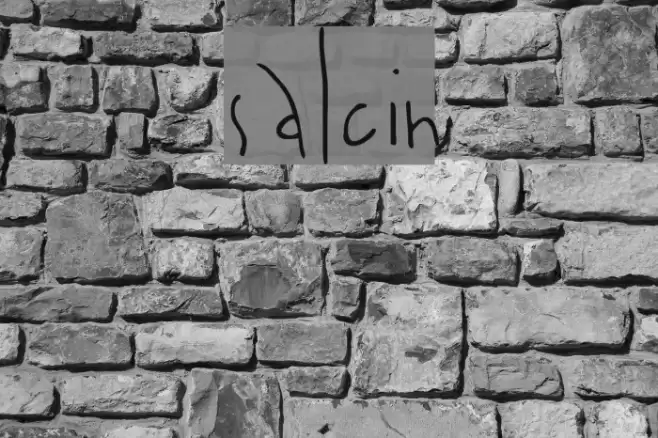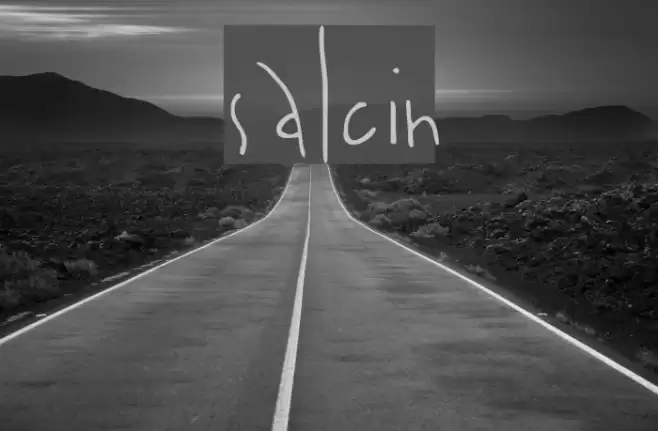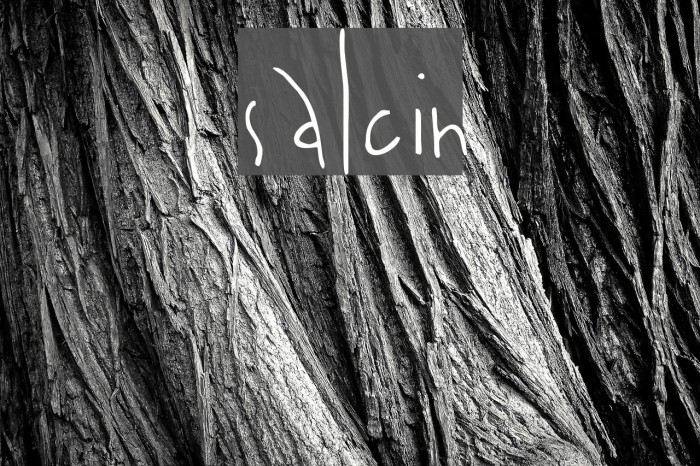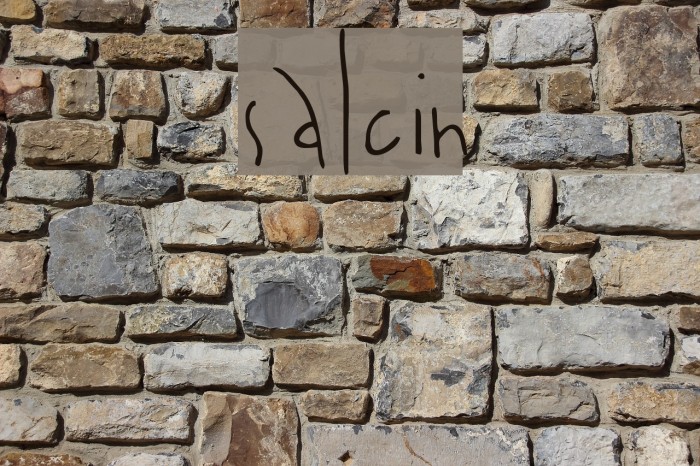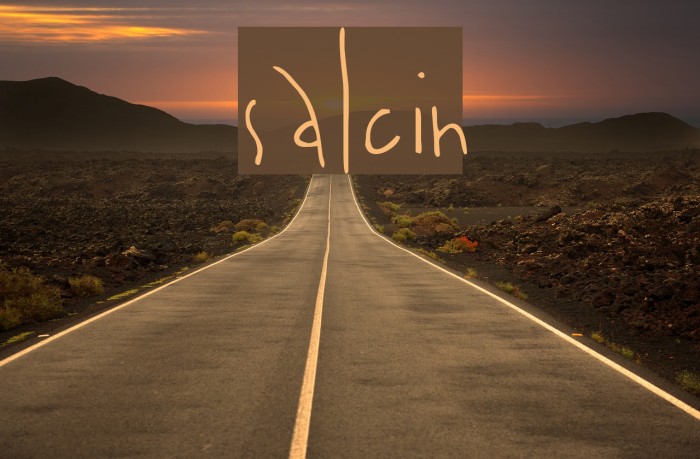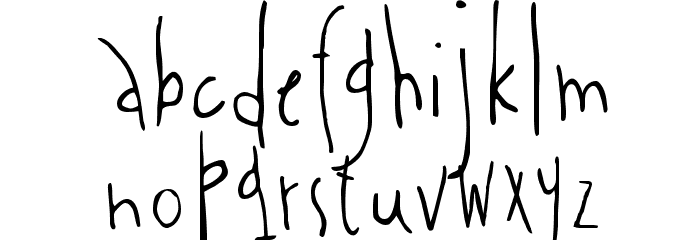
salcin Font
salcin Description
This font exhibits a playful and casual handwritten style, characterized by its irregular and organic letterforms. The uppercase letters are tall and narrow, with varying stroke widths that add a dynamic and lively feel. The lowercase letters maintain a similar whimsical quality, with some characters featuring exaggerated ascenders and descenders. The overall appearance is informal and artistic, making it suitable for creative and expressive projects. The font's unique style is further emphasized by its uneven baseline and slightly tilted characters, giving it a hand-drawn, personal touch.
A playful, casual handwritten font with irregular, organic letterforms from Handwritten fonts.
- Proposed Projects: Ideal for greeting cards, personal invitations, children's books, and artistic posters.
- Overall Style: Casual, Artistic
- Use Case: Logos, Headlines, Creative projects